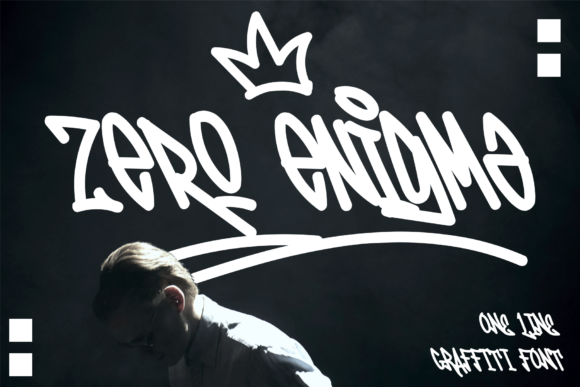
Introducing Zero Enigma Font: Elevate Your Designs with a Cool Graffiti Styled Display Font
Are you looking for a font that can add a touch of coolness and edginess to your designs? Look no further than Zero Enigma Font. This graffiti styled display font is perfect for designers who want to create bold and eye-catching designs that stand out from the crowd. In this article, we’ll take a closer look at Zero Enigma Font and how it can elevate a wide range of design projects to the highest level.
What is Zero Enigma Font?
Zero Enigma Font is a cool graffiti styled display font that is designed to make a statement. Its unique and edgy design makes it perfect for creating bold and eye-catching designs that grab attention. The font is versatile and can be used for a wide range of design projects, including branding, headings, logos, labels, and much more.
Key Features of Zero Enigma Font
- Graffiti Styled Design: Zero Enigma Font has a unique graffiti styled design that gives it a cool and edgy look.
- Display Font: This font is specifically designed as a display font, making it perfect for headlines, titles, and other display purposes.
- Versatile: Zero Enigma Font can be used for a wide range of design projects, including branding, headings, logos, labels, and much more.
- Easy to Read: Despite its edgy design, Zero Enigma Font is easy to read, making it perfect for use in a variety of contexts.
Benefits of Using Zero Enigma Font
There are many benefits to using Zero Enigma Font in your designs. Here are just a few:
- Adds a Touch of Coolness: Zero Enigma Font adds a touch of coolness and edginess to your designs, making them stand out from the crowd.
- Perfect for Bold Designs: If you want to create bold and eye-catching designs, Zero Enigma Font is the perfect choice.
- Increases Readability: Despite its edgy design, Zero Enigma Font is easy to read, making it perfect for use in a variety of contexts.
- Versatile: Zero Enigma Font can be used for a wide range of design projects, making it a great addition to your font library.
How to Use Zero Enigma Font
Using Zero Enigma Font is easy. Here are a few tips to get you started:
- Use it for Headlines and Titles: Zero Enigma Font is perfect for use in headlines and titles, where you want to grab attention and make a statement.
- Pair it with Other Fonts: Zero Enigma Font can be paired with other fonts to create a unique and interesting design.
- Experiment with Different Colors: Zero Enigma Font looks great in a variety of colors, so don’t be afraid to experiment and find the perfect color for your design.
Design Projects that Zero Enigma Font is Perfect For
Zero Enigma Font is perfect for a wide range of design projects, including:
- Branding: Use Zero Enigma Font to create bold and eye-catching branding materials, such as logos and business cards.
- Headings and Titles: Zero Enigma Font is perfect for use in headings and titles, where you want to grab attention and make a statement.
- Logos: Zero Enigma Font can be used to create unique and interesting logos that stand out from the crowd.
- Labels: Use Zero Enigma Font to create bold and eye-catching labels that grab attention.
Tips for Getting the Most out of Zero Enigma Font
Here are a few tips for getting the most out of Zero Enigma Font:
- Experiment with Different Sizes: Zero Enigma Font looks great in a variety of sizes, so don’t be afraid to experiment and find the perfect size for your design.
- Use it in Combination with Other Design Elements: Zero Enigma Font can be used in combination with other design elements, such as images and graphics, to create a unique and interesting design.
- Don’t be Afraid to Get Creative: Zero Enigma Font is a versatile font that can be used in a wide range of design projects, so don’t be afraid to get creative and try new things.
In conclusion, Zero Enigma Font is a cool graffiti styled display font that is perfect for designers who want to create bold and eye-catching designs. Its unique and edgy design makes it perfect for a wide range of design projects, including branding, headings, logos, labels, and much more. With its versatility and ease of use, Zero Enigma Font is a great addition to any font library.
- What is Zero Enigma Font?: Zero Enigma Font is a cool graffiti styled display font that is designed to make a statement.
- What is Zero Enigma Font used for?: Zero Enigma Font can be used for a wide range of design projects, including branding, headings, logos, labels, and much more.
- Is Zero Enigma Font easy to read?: Yes, despite its edgy design, Zero Enigma Font is easy to read, making it perfect for use in a variety of contexts.